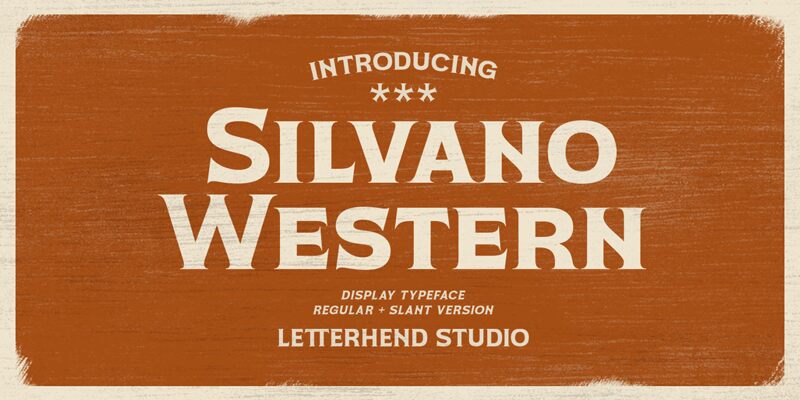
Silvano Western is a bold serif font designed by Letterhend Studio. The western style of this font is perfect for projects that require a rustic and adventurous feel. With its semi-expanded width, Silvano Western exudes strength and reliability, while also having a touch of playfulness. This font is suitable for branding projects in the outdoor industry, such as camping or hiking gear companies. It would also be great for designing product packaging for whiskey or craft beer brands. Silvano Western is the perfect choice for any project that needs to convey a sense of adventure and ruggedness.